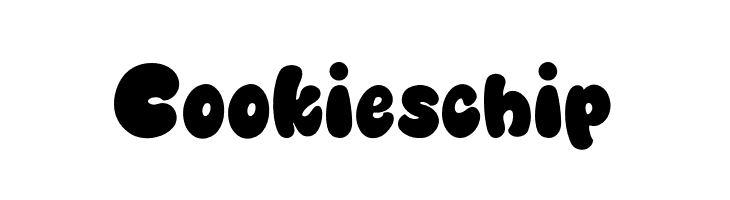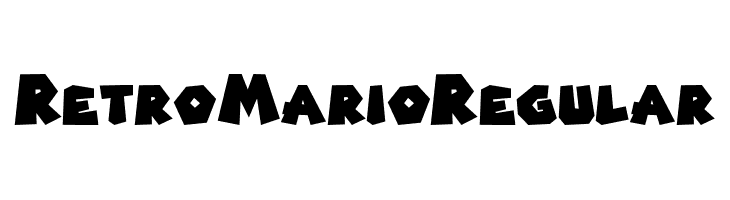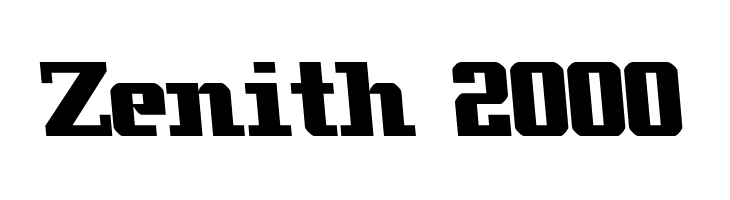
A bold, geometric font with a modern, industrial style.
A bold, bubbly font with rounded characters and a playful style.
A bold, expressive brush-style font with dynamic, hand-painted strokes.
A bold, decorative font with jagged, leaf-like edges for an organic look.
A casual, handwritten-style font with uneven strokes and a personal touch.
A bold, italicized font with a futuristic and dynamic style.
A traditional blackletter font with ornate, angular strokes and a gothic aesthetic.